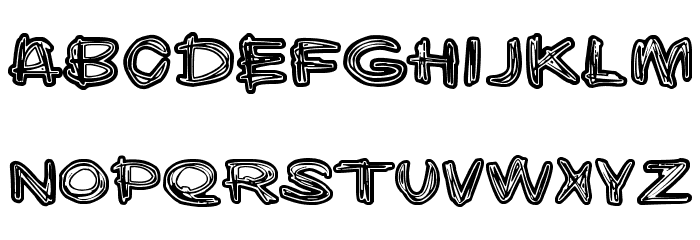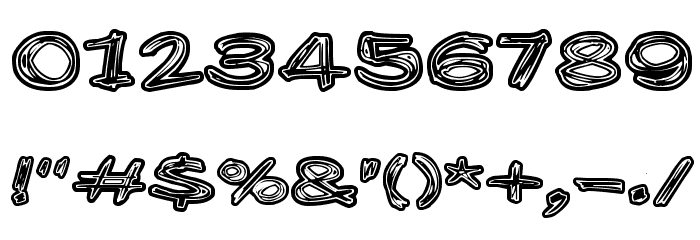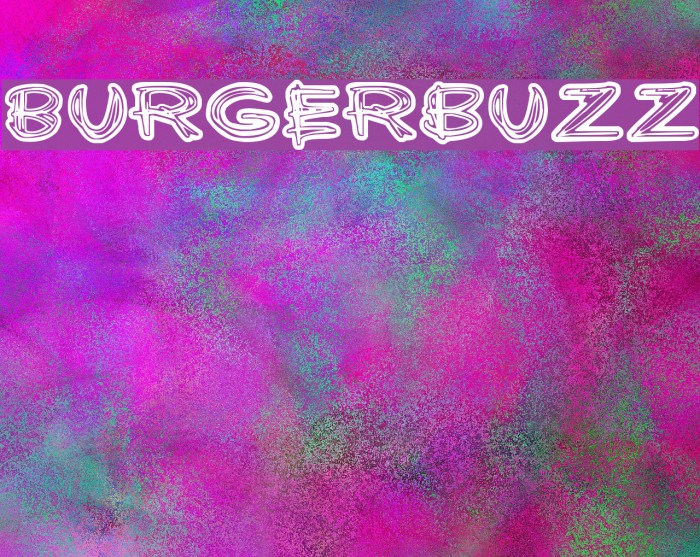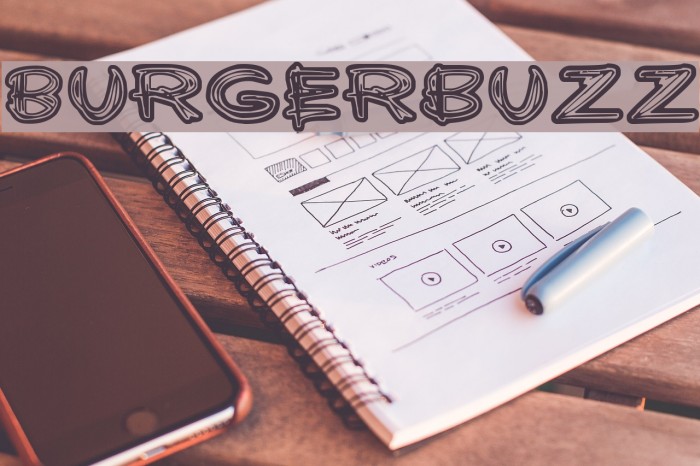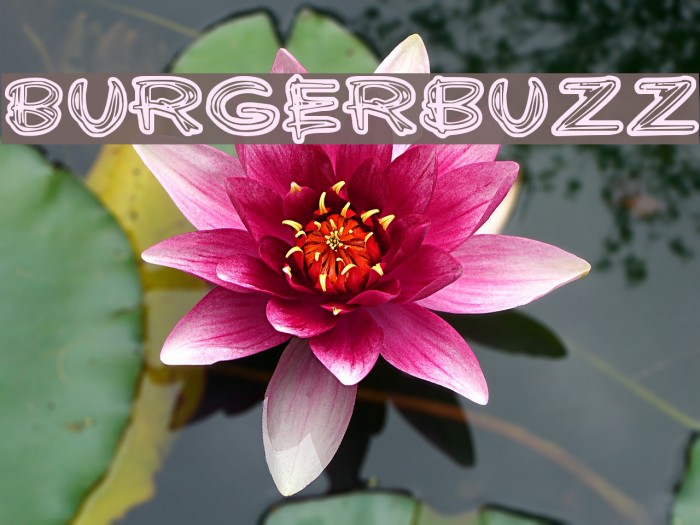
Burgerbuzz Font
This font features a bold, playful style with a hand-drawn appearance. The letters are outlined with a thick, uneven stroke, giving them a cartoonish and energetic vibe. Each character has a slightly irregular shape, adding to the whimsical and informal feel. The font is highly decorative, making it suitable for eye-catching designs. Its unique style is reminiscent of graffiti or comic book lettering, with a strong emphasis on individuality and creativity. The numbers and special characters maintain the same lively and bold characteristics, ensuring consistency across all elements.
A bold, playful, hand-drawn font with a cartoonish and energetic style.
- Proposed Projects: Ideal for comic books, children's books, playful branding, posters, and creative advertisements.